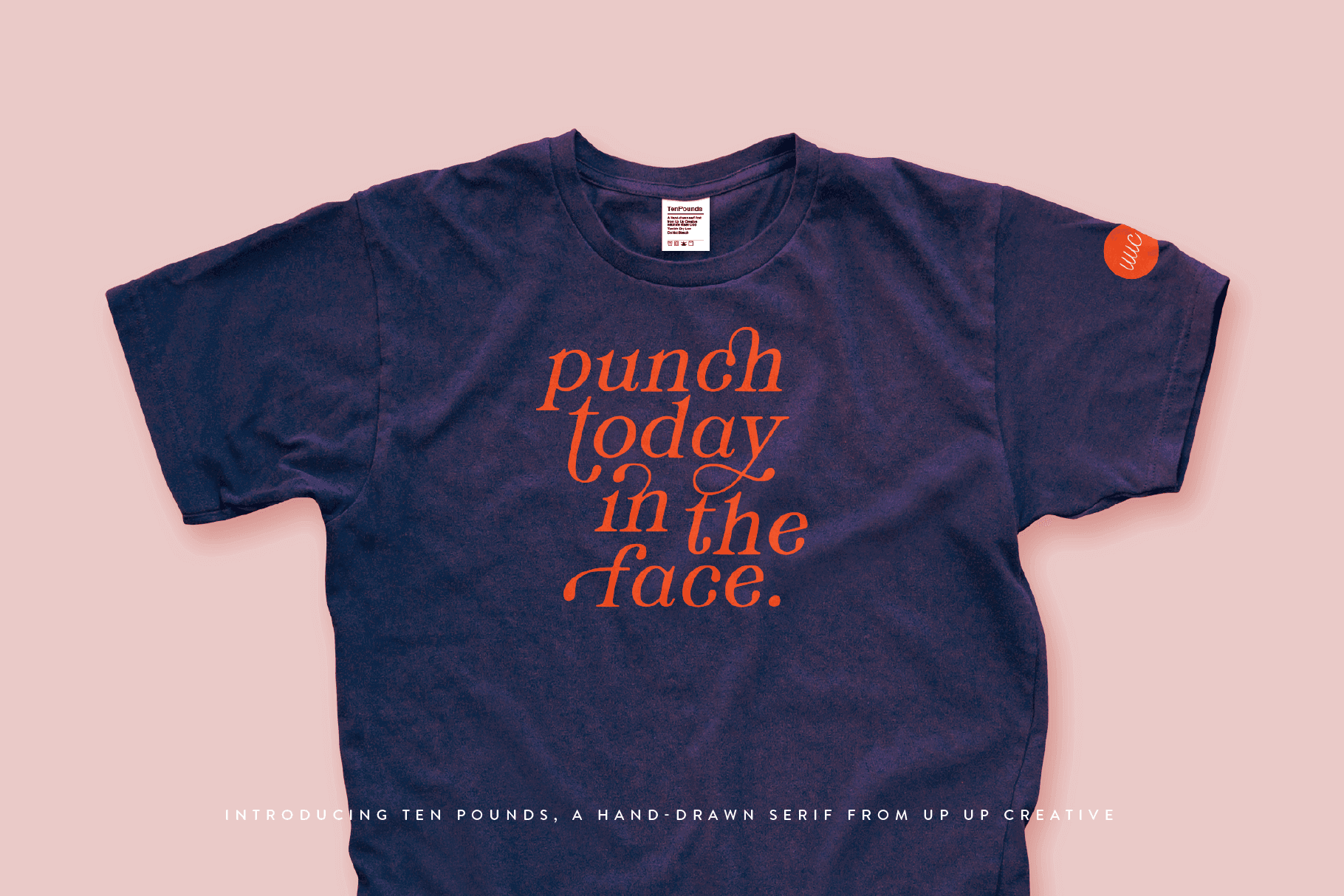
When it comes to infusing a personal, human touch into your design projects, hand-lettered fonts stand out as a top choice. Whether you're working on branding, wedding invitations, or social media graphics, these fonts bring a sense of warmth and authenticity that's hard to replicate with standard typefaces.
What Are Hand-Lettered Fonts?
Hand-lettered fonts are typefaces that emulate the look and feel of custom, hand-drawn lettering. In most cases, that's because they're literally drawn by hand by the type designer (that's definitely the case with all of my own hand-lettered fonts). They often feature natural variations in stroke width, organic curves, and playful ligatures, making them ideal for projects that require a touch of character.
Unlike traditional calligraphy or script fonts, hand-lettered fonts blur the line between formal typography and the artistry of handwritten text. They can be whimsical, romantic, or even a bit edgy—whatever vibe you're aiming for, there's likely a hand-lettered font to match.
Well-made hand-lettered fonts often include advanced OpenType features, such as special ligatures, alternate letterforms, contextual alternates, swashes, and more. These features help your text look even more like real hand-lettering by adding natural variation and complexity.
When to Use Hand-Lettered Fonts
Hand-lettered fonts are versatile and can be used in various design contexts, including:
Branding: They add a bespoke feel to logos and packaging.
Invitations & Stationery: Perfect for weddings, showers, and other special occasions.
Social Media Graphics: Great for creating eye-catching, shareable content.
Editorial Design: Suitable for magazine covers, book titles, or printables.
Featured Hand-Lettered Fonts from Up Up Creative
If you're looking to elevate your designs with beautiful hand-lettered fonts, here are some top picks from my collection:
Ten Pounds: A hand-drawn serif font that exudes charm and character, ideal for projects seeking a rustic yet refined look.
Slight Script: An elegant script font with a heavy right slant, perfect for invitations, branding, and editorial design.
Meritocracy: A full-featured handwritten font with over 300 individually drawn ligatures that help you infuse your typography with personality and variety.
Tips for Using Hand-Lettered Fonts
Pair Wisely: Hand-lettered fonts shine when paired with simple, clean typefaces. Combining them with a minimalist sans serif or a classic serif font can create a balanced design.
Mind the Scale: Use hand-lettered fonts for headlines, logos, or accent text rather than body copy to maintain readability.
Embrace OpenType Features: Many hand-lettered fonts include ligatures and alternates. Exploring these extras can add even more personality to your designs.
Wrapping Up